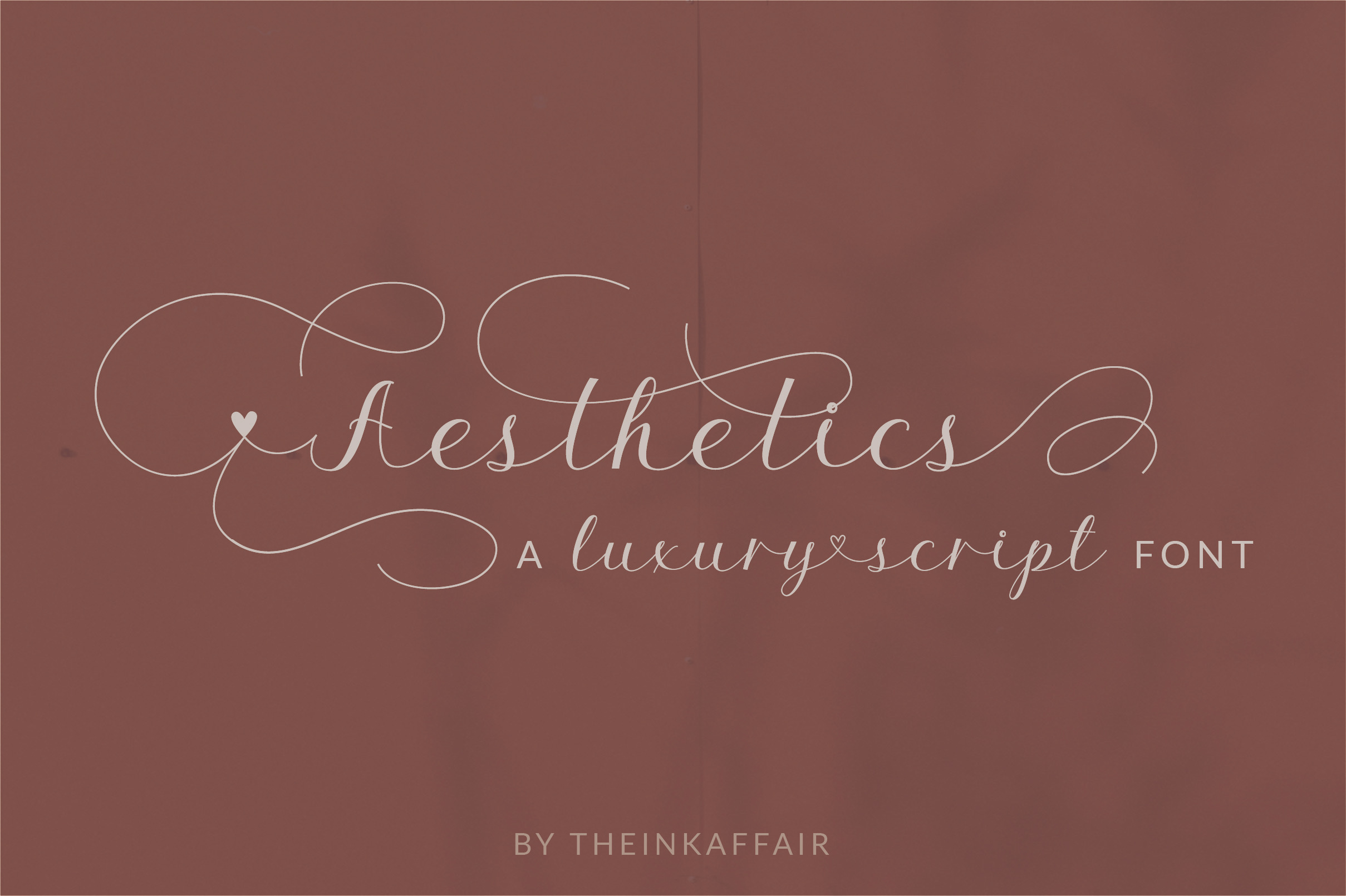
Aesthetics Luxury Script Font
Introducing Aesthetics, a hand crafted, luxury calligraphy script font that is perfect for wedding invites, events, branding and packaging, and more.
Aesthetics Script Font includes a full set of gorgeous uppercase and lowercase letters, numerals and punctuations, ligatures and a bunch of alternates to help you create beautiful, ornamental hand lettered calligraphy designs.
It comes with 10 sets of alternates with beginning and ending swashes/flourishes to add that decorative, ornamental charm to your designs. Also included are 4 connecting heart swashes + all swashes as separate standalone glyphs that can be mixed and matches to add an element of love and flow.
- Aesthetics Swash - The first set of beginning and ending swashes are coded as A-Z and a-z respectively for easy access to swashes.
- Aesthetics Swash 2 - The second set of beginning and ending swashes are coded as A-Z and a-z respectively.
- Aesthetics Swash 3 - The third set of beginning and ending swashes are coded as A-Z and a-z respectively.
- Aesthetics Swash 4 - The fourth set of beginning and ending swashes are coded as A-Z and a-z respectively.
- Aesthetics Swash 5 - The fifth set of beginning and ending swashes are coded as A-Z and a-z respectively.